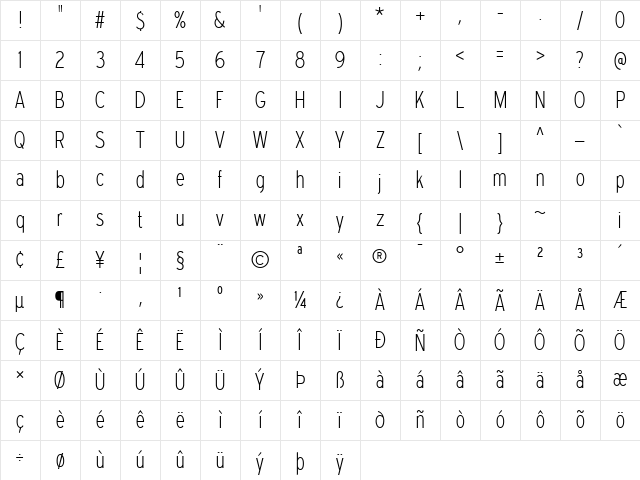
Expressway Condensed ExtraLight
Style: Condensed ExtraLight
Expressway Family
Design Context for Expressway
Expressway is a composed and adaptable typeface that performs quietly and consistently across a wide range of design contexts. Its slender proportions lend an understated elegance to any composition. Its narrow stance lets it pack a punch even in space-constrained designs.